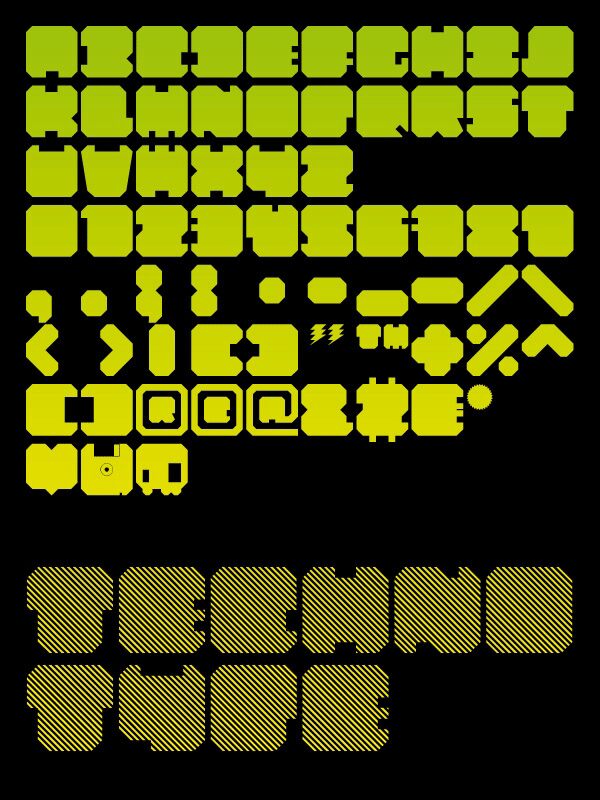
SHD TechnoType Italic by Marc Büttner is a free striped stencil display font with broad, rounded letterforms. Dense diagonal lines fill each shape, and sharp white breaks cut through the otherwise solid silhouettes. The effect is mechanical and highly patterned.
Technology, arcade games, and electronic music are natural subjects for this lettering, since the repeated striping recalls scan lines and engineered surfaces. It could shape game title cards, club posters, or merchandise for a futuristic event. On packaging and digital graphics, the letters can become part of an interface pattern or machine-like illustration instead of serving only as neutral text in the finished design.